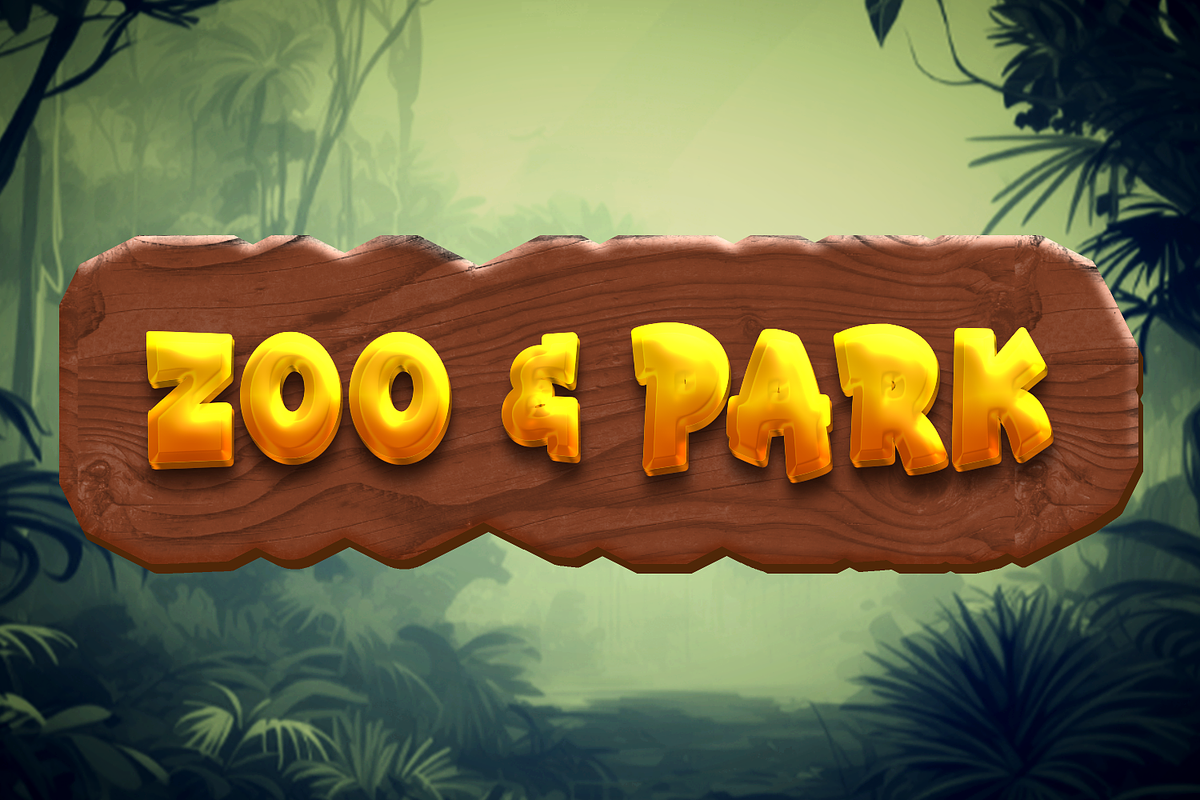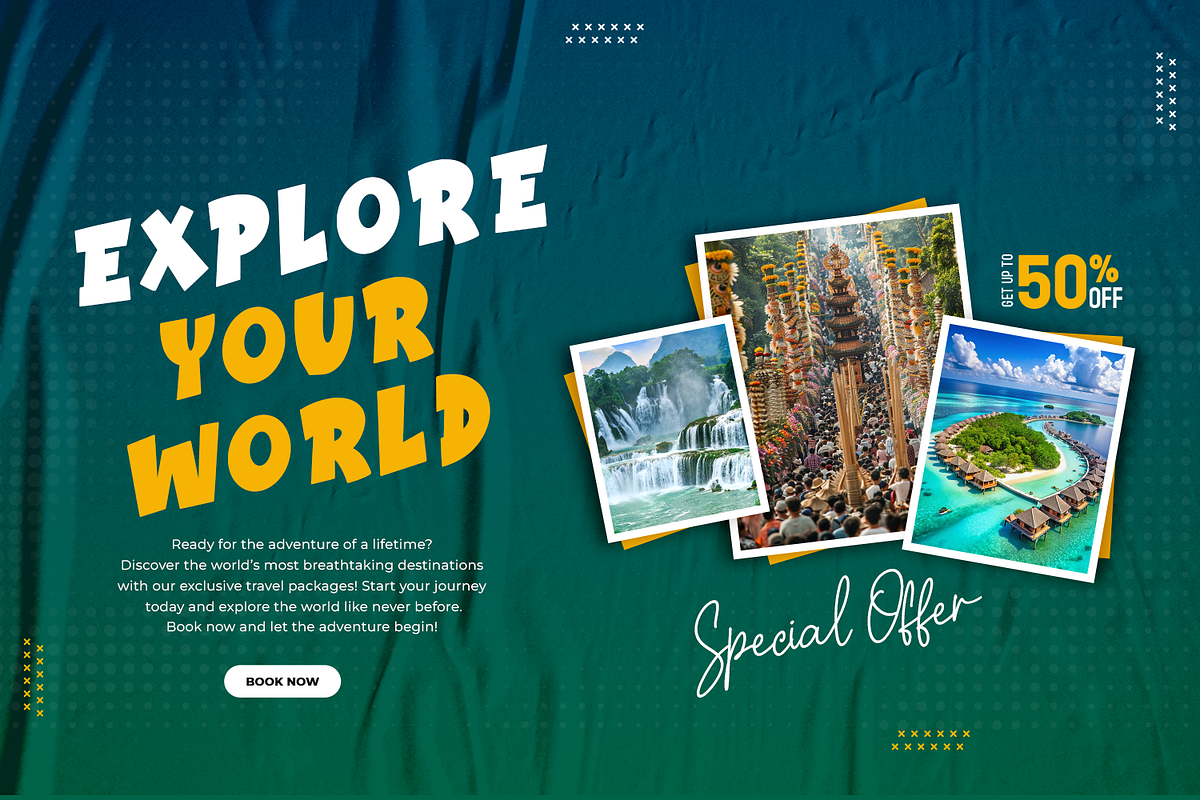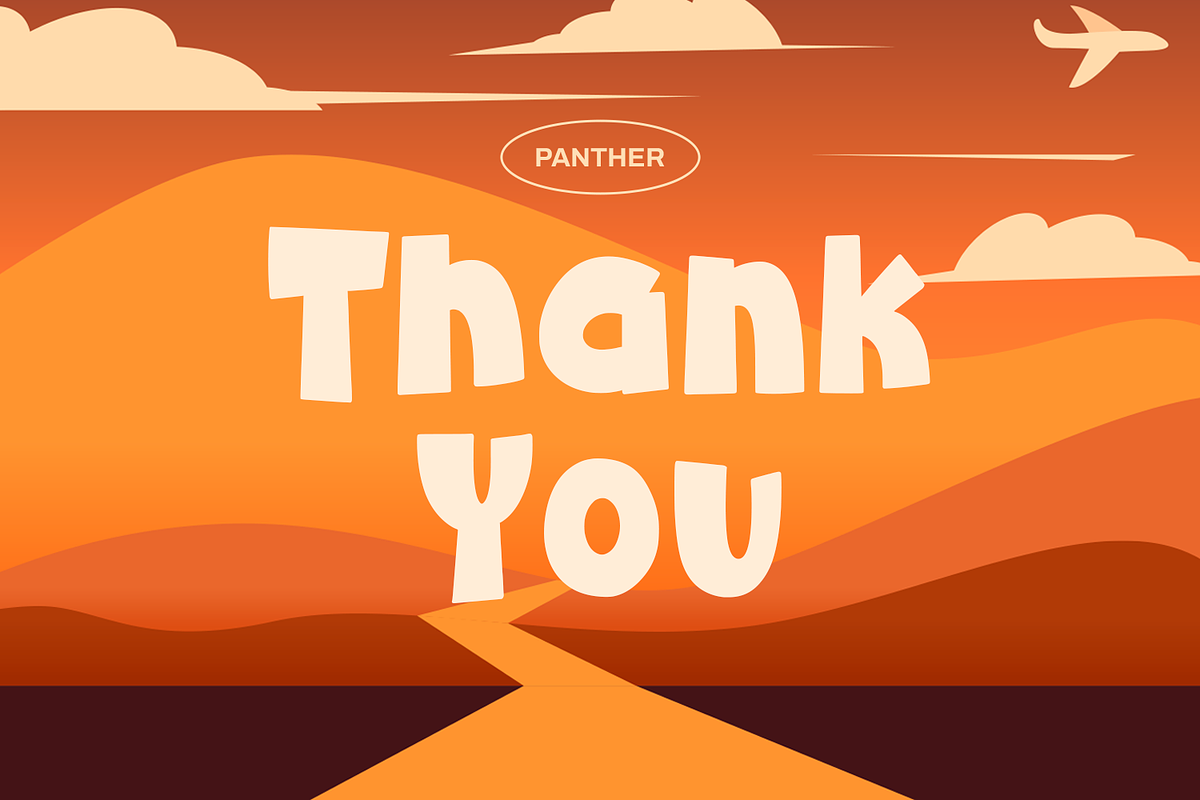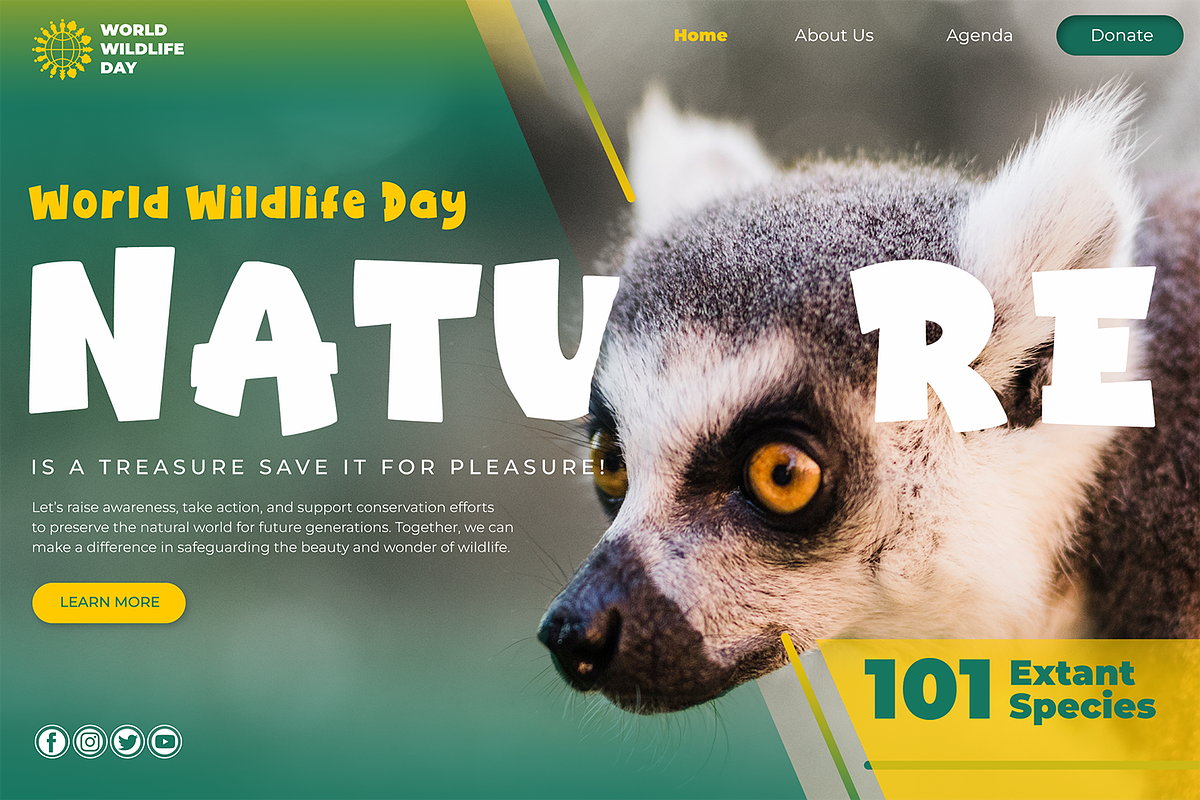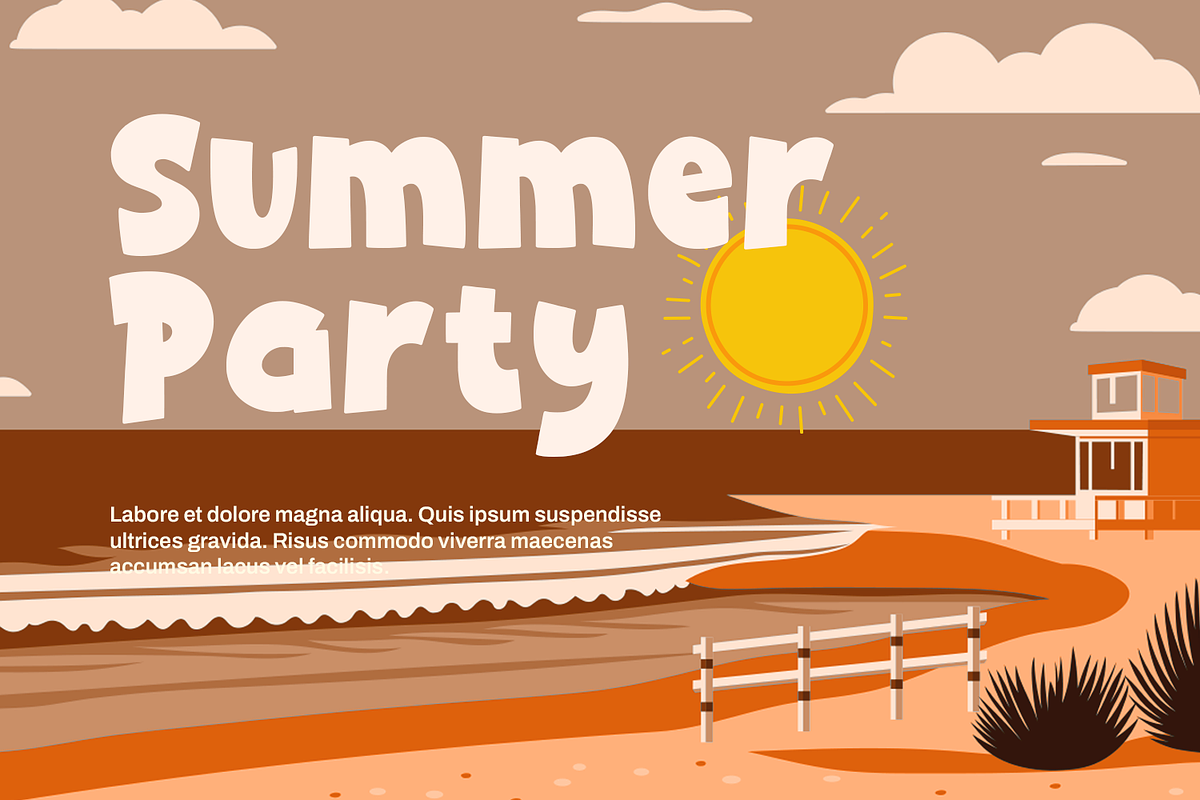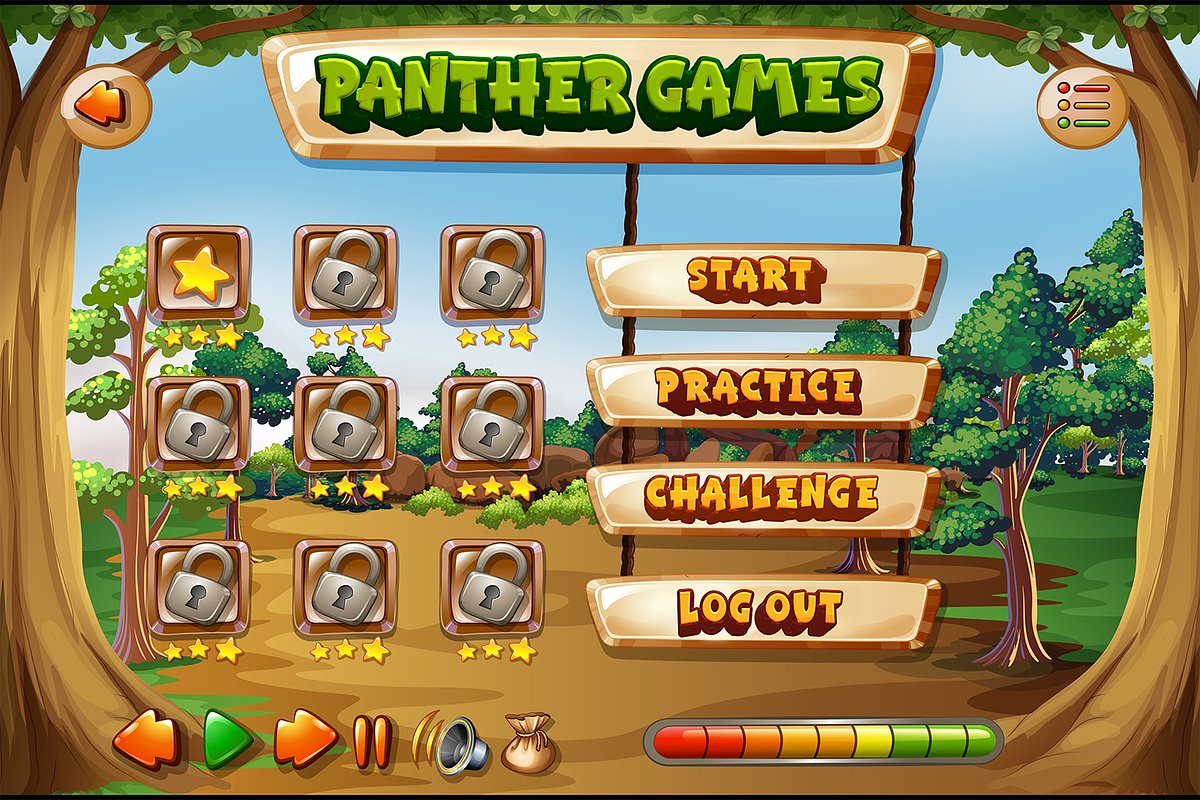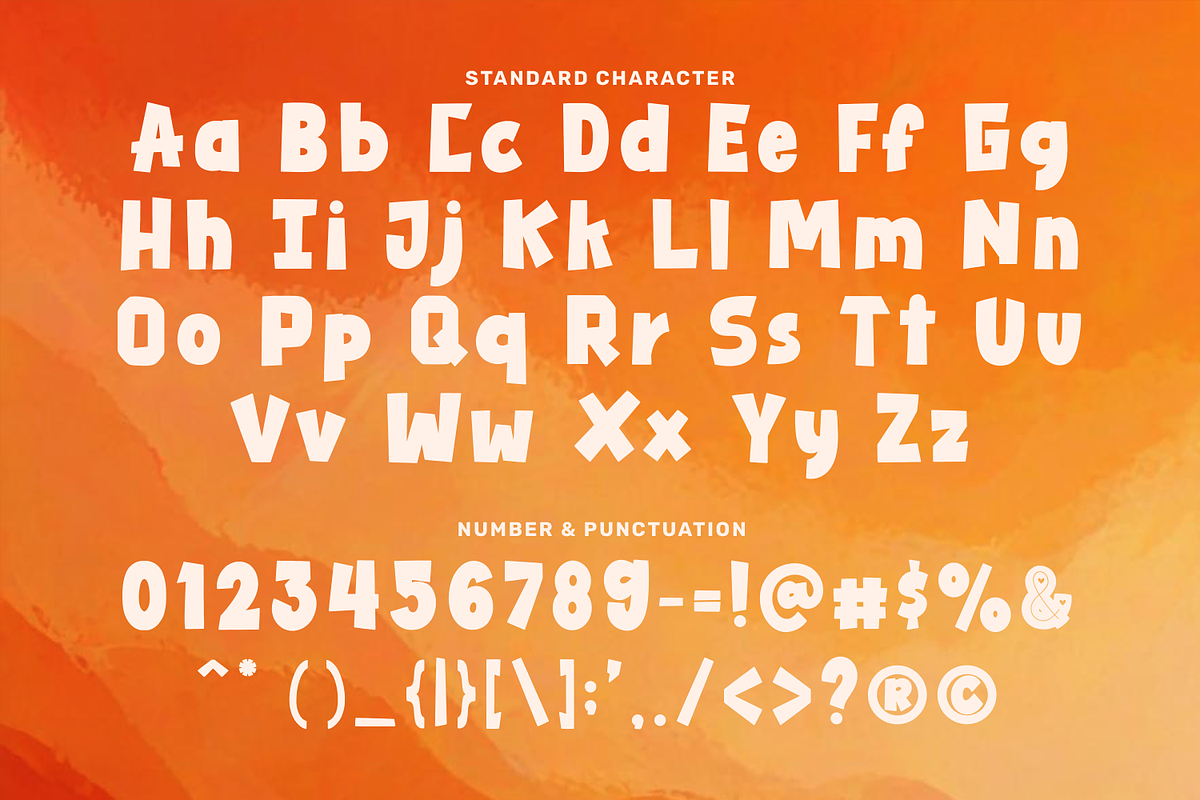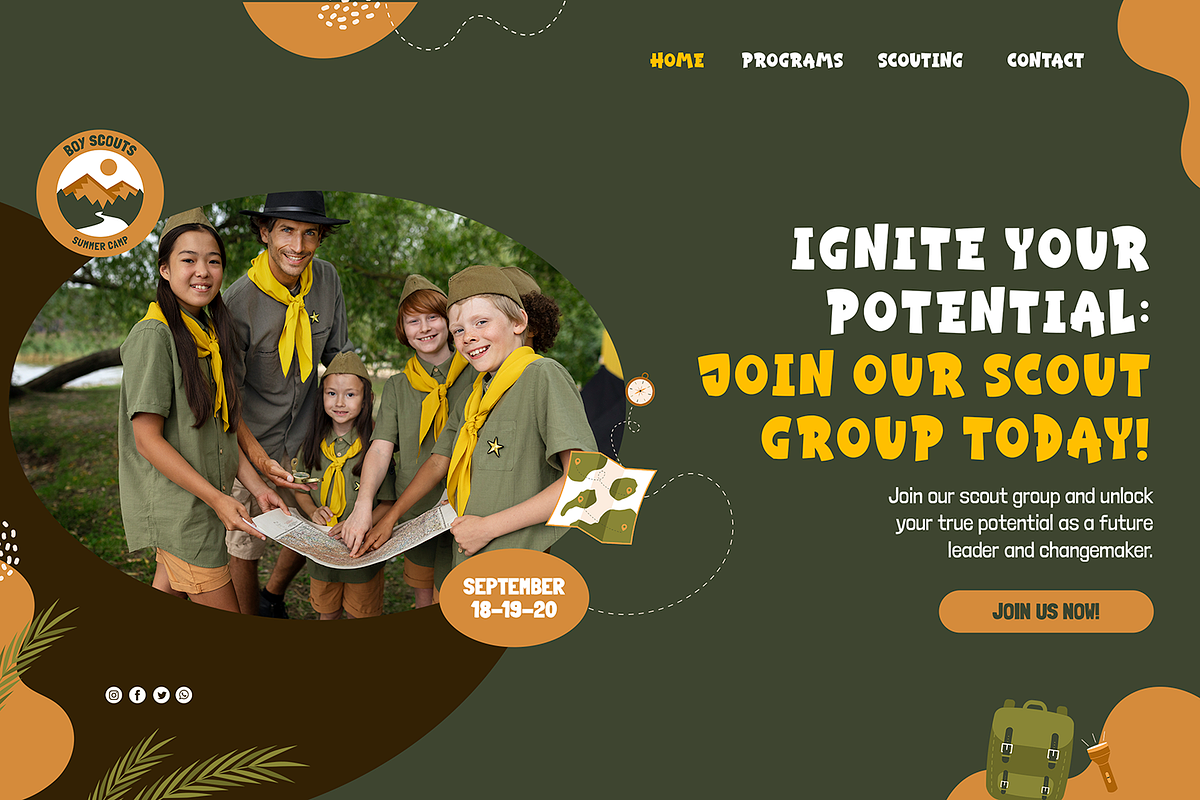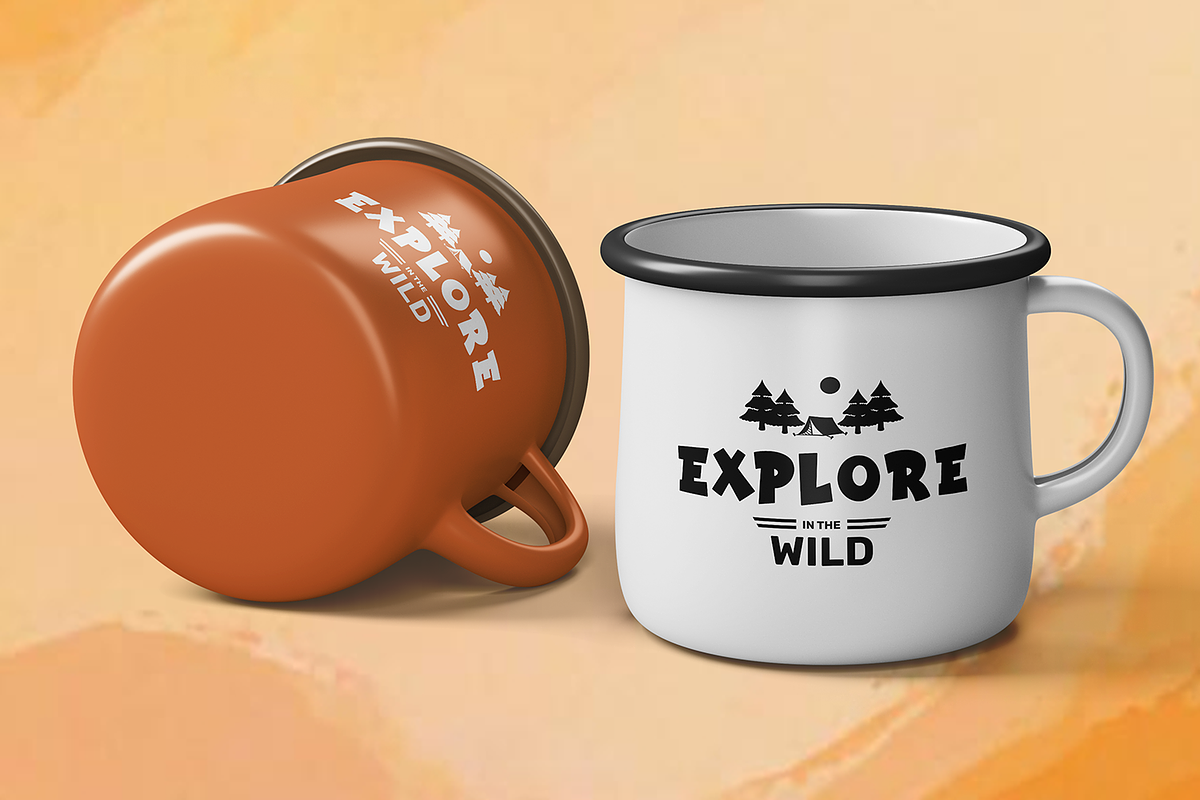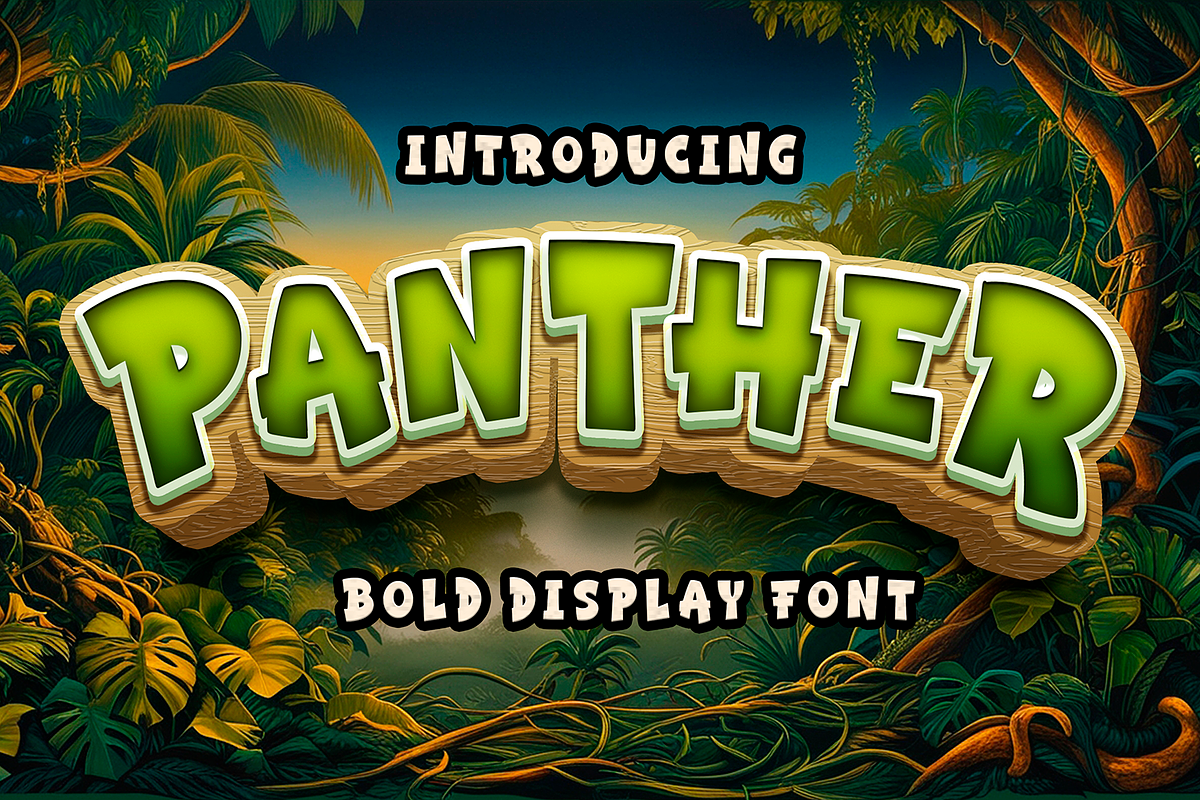
Panther
Panther is a bold and dynamic display font that brings a sense of fun and energy to any project. Its thick, playful strokes and strong characters make it perfect for designs that need to stand out, whether for game titles, travel banners, or event promotions. With a unique style that captures the excitement of the wild, Panther is sure to make an impact in any creative setting.
Inspired by the sleek and powerful presence of its namesake, Panther is ideal for themes related to adventure, nature, and exploration. It works perfectly for kids’ projects, zoo or park signage, safari-themed designs, and anything that conveys the thrill of the outdoors. The font's bold curves and playful look evoke a sense of fun while maintaining a professional edge.
Whether you're designing for a children's game, a travel campaign, or a playful event, Panther adds a touch of excitement and creativity. Its versatile style is well-suited for both digital and print use, making it a go-to font for a wide range of projects, from fun posters to interactive media. The striking appearance of Panther ensures that your message will be impossible to ignore.